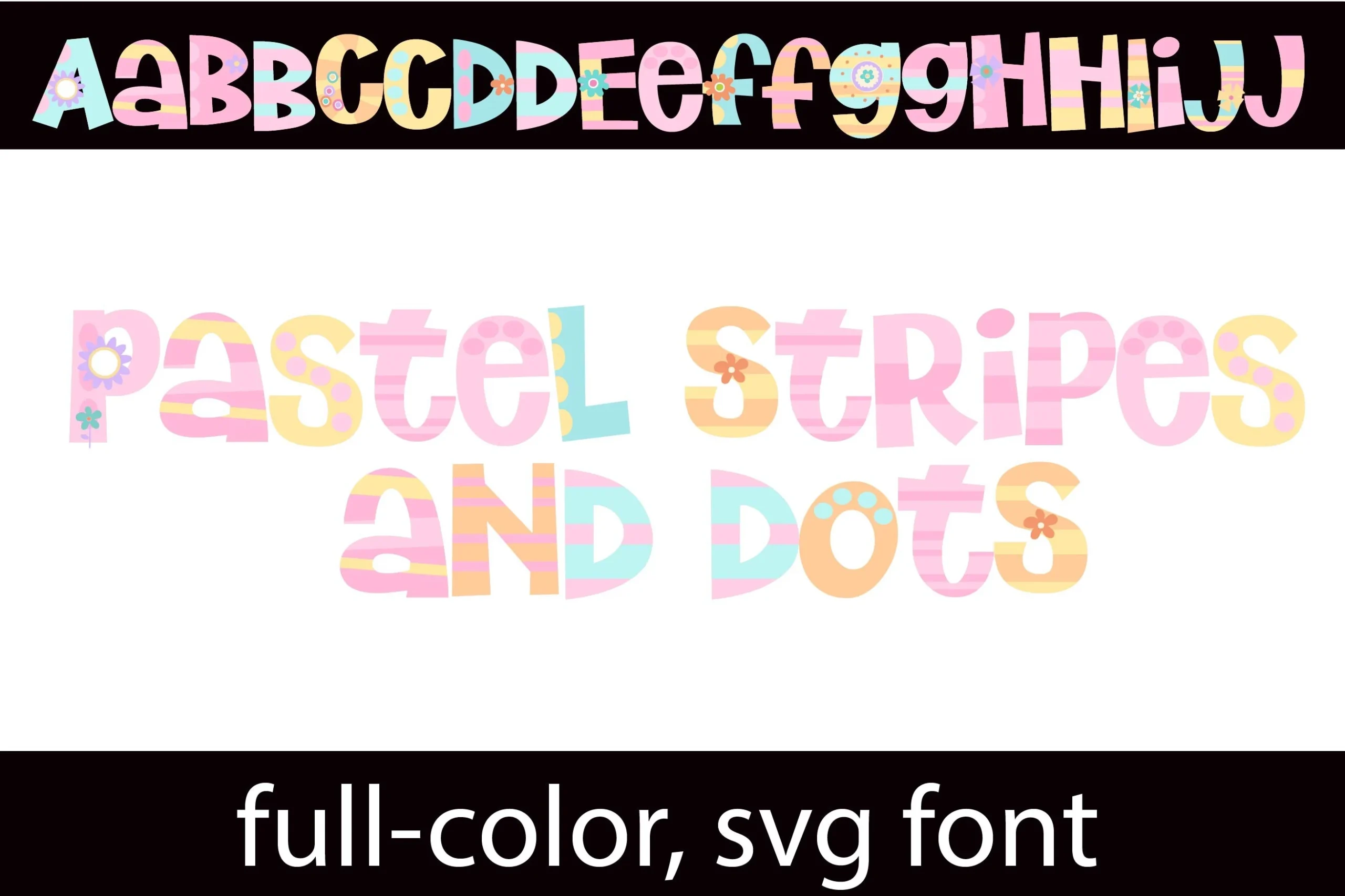
Colorful Fonts are useful when typography needs to act as the main visual element, not just support the design. This roundup brings together 38 fonts with bold fills, textured outlines, playful patterns, SVG effects, graffiti shapes, toy-block forms, patriotic details, beach themes, comic energy, and kid-friendly lettering.
Most of these fonts are display-focused, so they work best in short titles, stickers, T-shirts, posters, party graphics, classroom projects, social media headers, and merch-style designs. The main handling rule is simple: keep the wording brief, give the letters enough space, and avoid cluttered backgrounds that fight with the color, shadow, texture, or internal pattern.
Pastel Urban Art Font
Pastel Urban Art Font turns graffiti bubble lettering into soft candy-colored display type, with thick black outlines, rounded inflated shapes, x-mark details, shiny inner strokes, splatter marks, and heavy dripping edges. The full-color SVG treatment gives the letters an already-built visual texture, so the font reads more like finished lettering than a plain outline alphabet.
Use it where Colorful Fonts need immediate impact: short names, sticker text, streetwear graphics, or social headers. Its wide forms and decorative drips need strong spacing and simple surrounding elements; tight layouts will blur the splatter texture and weaken the cartoon-graffiti rhythm.
Hand Drawn Color Font
Hand Drawn Color Font has a cheerful cut-paper look, with uneven blocky backgrounds, loose scribbled strokes, and simple letter shapes that feel handmade rather than polished. The mix of tall narrow forms, rounded counters, and sketchy interior lines gives it a lively classroom-collage rhythm that suits playful display work.
If you want Colorful Fonts that feel crafty and informal, this one works best for short titles where the two-color family can do the heavy lifting. Keep the wording brief and leave a bit of spacing between letters or words, so the scribble texture and quirky proportions stay clear instead of turning busy.
Watercolor Font
Watercolor Font uses broad uppercase letters with soft brush-stroke edges, visible pigment variation, and a slightly cloudy fill that feels like real paint on paper. The shapes are simple and sturdy, so the texture stays decorative without hurting readability, especially in short titles where the washed color can stay fully visible.
For Colorful Fonts, this one brings a more handcrafted mood than a loud novelty look. It works best at medium to large sizes on clean backgrounds, where the watercolor texture has room to breathe; tight layering or long lines will flatten the painted effect and make the letters feel less distinct.
Army Baseball Font
Army Baseball Font leans into a chunky rounded silhouette, then cuts through it with bright red baseball stitching that instantly defines the theme. The wide uppercase forms and black outline keep the letters bold and easy to read, while the stitching adds enough detail to make each character feel like part of a jersey graphic rather than plain display type.
For Colorful Fonts, this one is highly specific in a good way: it gives sports designs a ready-made visual hook. Use it for short names, team slogans, or event headers where the stitching can stay visible; tight tracking or long lines will make that interior detail feel crowded and reduce the impact.
Vintage Font
Vintage Font has the kind of bold retro presence that does the styling for you. The letterforms are thick and rounded, with a cream fill, dark navy outline, and stacked color shadows in warm orange, yellow, and muted mint. That layered build gives the type real depth, while the worn texture keeps it from feeling too clean or digital.
If you’re browsing Colorful Fonts for throwback branding, this one works especially well in short titles where the offset layers stay crisp and readable. Let it lead the hierarchy and keep nearby text simple; the distressed finish and multicolor shadow already create enough movement without competing details.
Joy Boy Font
Joy Boy Font is a graffiti-heavy color display face with swollen block letters, glossy highlights, sharp black contouring, and neon gradient fills that shift through yellow, red, pink, and green. The thick purple shadow and paint-drip details make the words feel sticker-like, with enough outline contrast to keep short phrases readable.
The strongest colorful fonts in this list are not just bright; they have a clear visual role. Some are built for children’s designs and classroom graphics, others lean into graffiti, retro posters, beach layouts, comic titles, patriotic artwork, or playful product labels.
Use them where the font can carry the composition. For long copy, they will usually become too dense. For short words, names, headlines, and graphic-led layouts, they give you ready-made color, texture, and personality without needing much extra decoration.